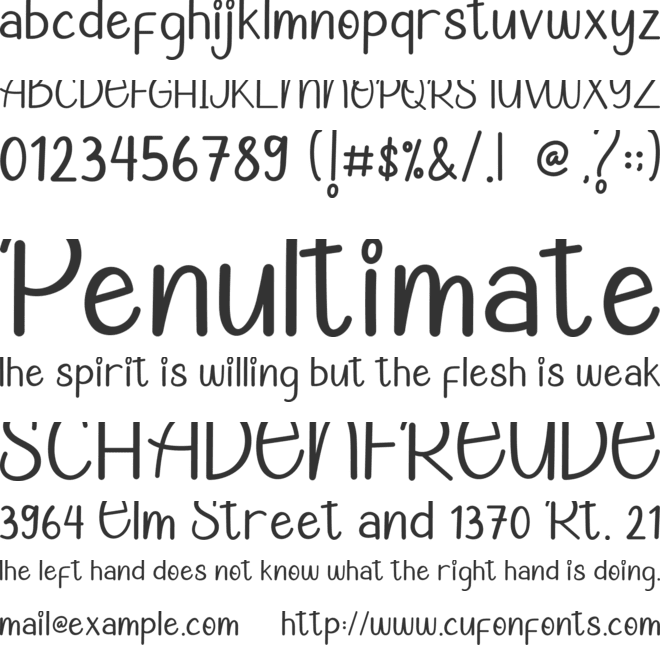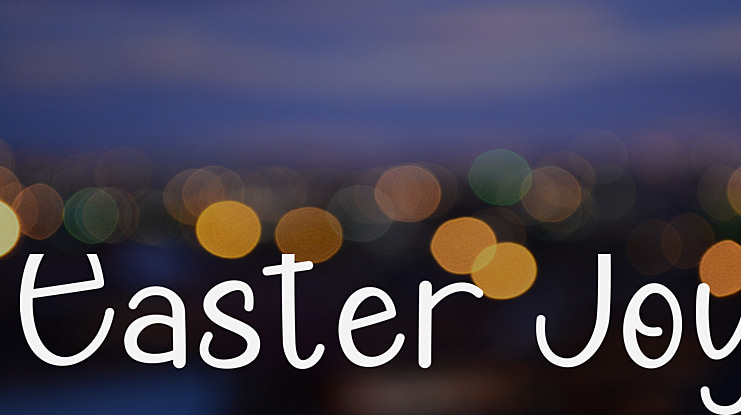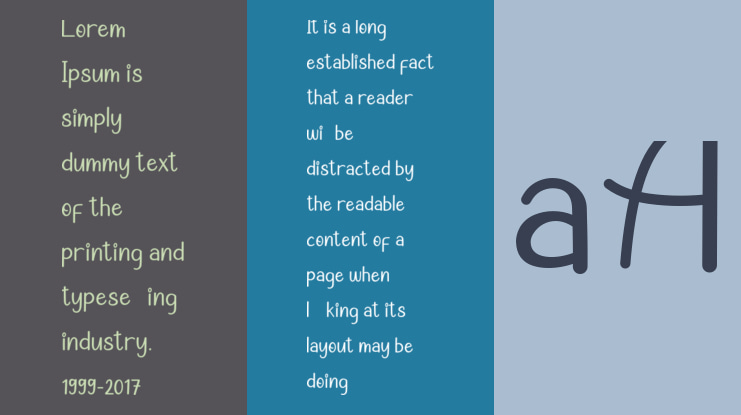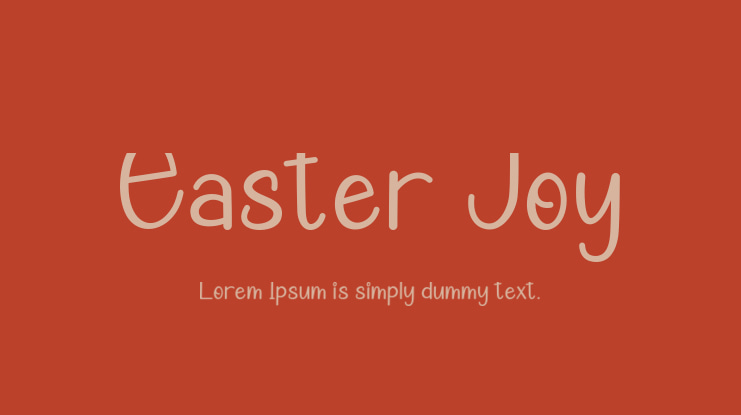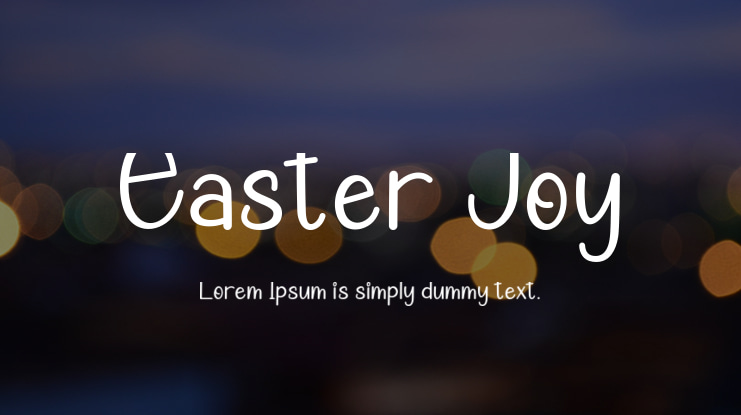
Easter Joy Font
Easter Joy is a quirky display font featuring unique ornaments. This font is perfect for Easter-themed designs, cards, branding, stationery, blog design, custom art, quote, or much more! It will add a unique feel and looks stunning to any design project!